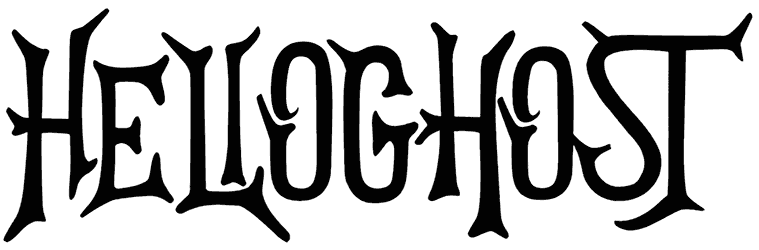
Helloghost Font
Helloghost is a witch font that comes with curved and stretched characters, thus masterfully adding a feeling of innovation, drama, jauntiness, and vivacity to a vast variety of artwork such as movie posters, gift cards, greeting cards, logos, and product packaging. Despite all advantages of this Halloween font, numbers are not included in it, but it is not a serious matter.